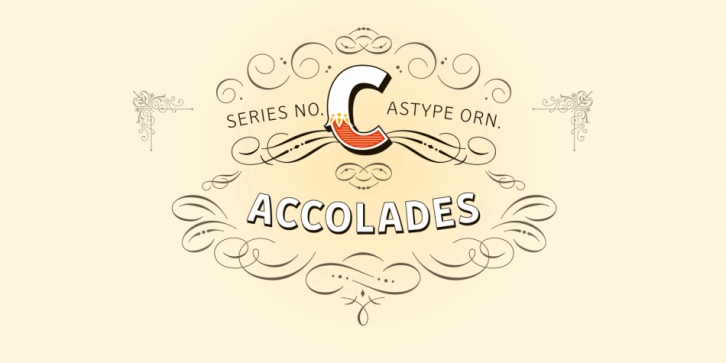
Designed by Andreas Seidel, Astype Ornaments Accolades C is a dingbat font family. This typeface has six styles and was published by Astype.
The Astype ornament series Accolades C offers a fine set of calligraphic swashes, swirls and floral ornaments. The shapes are in systematic order and harmonize in contrast and detail. Accolades C and C2 share the same ornaments but differ in finishing of the main ornaments. Accolades C use pearls and diamonds, C2 not. Accolades CX is an additional fitting set of borders.
All fonts are available in two variations: a clean version and a distressed, grungy version (old).